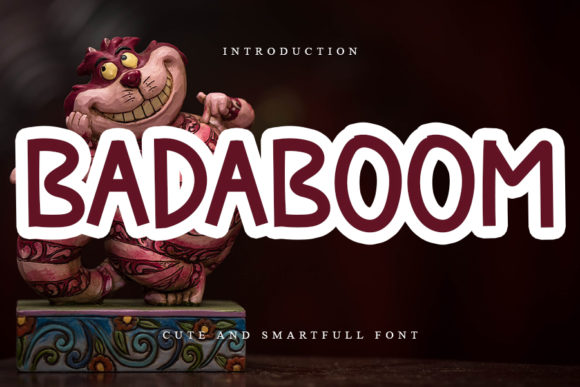
Badaboom Font Download Display Fonts: If you’re on the hunt for a bold, energetic, and playful font that packs a punch — look no further than the Badaboom Font. With its thick lines, exaggerated style, and comic book flair, Badaboom is a go-to choice for designers who want to make a big, fun impression. Whether you’re creating superhero posters, YouTube thumbnails, or gaming graphics, Badaboom brings the boom.
💥 What is the Badaboom Font?
Badaboom is a high-impact display font best known for its comic-style, cartoon-inspired lettering. Created with strong, bold strokes and dynamic character spacing, this font instantly grabs attention. It’s no surprise that Badaboom has become one of the most popular fonts for superhero posters, comic strips, memes, and action-packed designs.
Its name even sounds like something out of a Batman comic — “Badaboom!”, “Kablam!”, “Whack!” — and that’s exactly the energy it brings to your layout.
While it’s loud and proud, Badaboom is also clean and easy to read, making it a perfect choice when you want something bold but not messy.
🎯 Key Features of Badaboom Font
Comic Book Style: Instantly evokes the look and feel of action comics.
Bold & Thick Letterforms: Stands out in thumbnails, headlines, and graphics.
All Caps Font: Designed in uppercase only for maximum impact.
Perfect for Display Use: Not suitable for paragraphs — this font is meant to shine big and bright.
Fun & Flexible: Great for a wide variety of playful or high-energy designs.
🎨 Where to Use Badaboom Font?
The Badaboom font is all about loud visuals and exciting vibes. It’s not your average workhorse font for long body text — it’s your main event typeface.
1. Comic Book Covers & Pages
Badaboom is one of the most iconic fonts used in DIY comics and fan art. It screams action, fun, and impact — perfect for speech bubbles and dramatic text effects.
2. YouTube Thumbnails & Gaming Channels
Want your video to stand out in a sea of thumbnails? Use Badaboom in bold red or yellow over a character or game screenshot for immediate clicks.
3. Posters & Flyers
From action movies to themed parties and wrestling events, Badaboom brings that comic-book flair to posters that demand attention.
4. T-Shirts & Merch
Designs aimed at comic lovers, gamers, or retro fans pop off the fabric with Badaboom’s chunky, eye-catching letterforms.
5. Social Media Graphics & Memes
Use Badaboom in meme designs, callouts, and viral quote images to add humor and intensity. Think of it as the “shouting font” your post needs.
🔡 Font Pairing Suggestions
Badaboom is a bold display font, so you’ll want to pair it with fonts that are simple, clean, and unobtrusive to let it shine. Here are a few suggestions:
Roboto or Open Sans – Great for body text that won’t fight for attention.
Montserrat or Bebas Neue – If you need a bold subtitle that still lets Badaboom be the star.
Comic Neue – A lighter comic-style font that complements Badaboom without overshadowing it.
Q2: Is Badaboom a full font with lowercase letters?
A: No. Badaboom is typically an all-uppercase font, designed for titles, headers, and comic-style text. It may include punctuation and numerals but lacks lowercase letters.
Q4: Is Badaboom good for long paragraphs or blog posts?
A: Not really. It’s a display font, which means it’s designed for short bursts of bold text — like headlines, titles, or callouts — not for long reading material.
Q5: Does Badaboom support multilingual characters?
A: Basic versions typically support the standard Latin alphabet and punctuation. Multilingual support is limited unless otherwise noted in the download package.
The Badaboom Font is loud, proud, and ready to bring your ideas to life with explosive energy. Whether you’re designing a comic panel, a viral meme, or a striking poster, Badaboom delivers the WOW factor every time. It’s clean, impactful, and just plain fun to use.